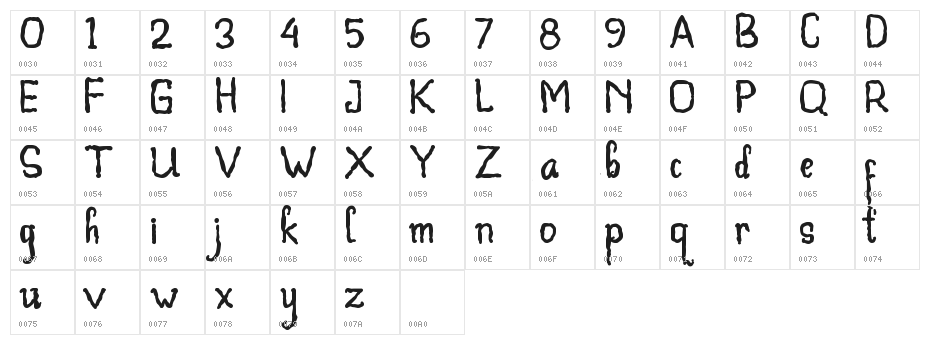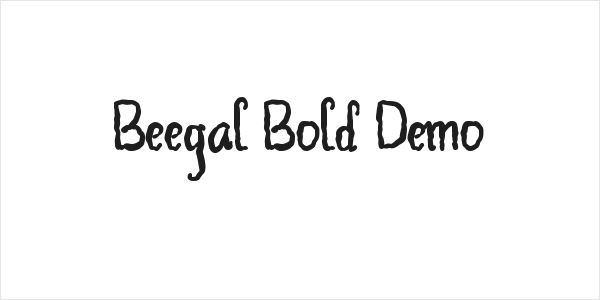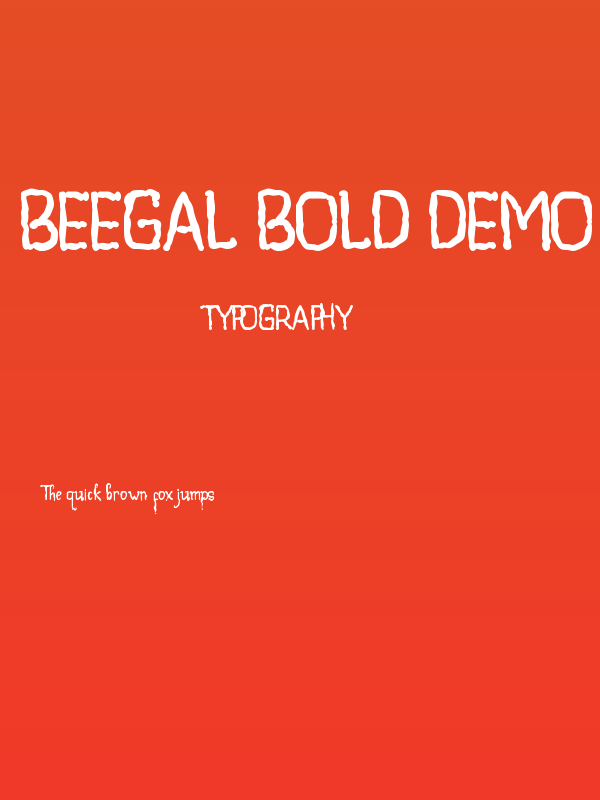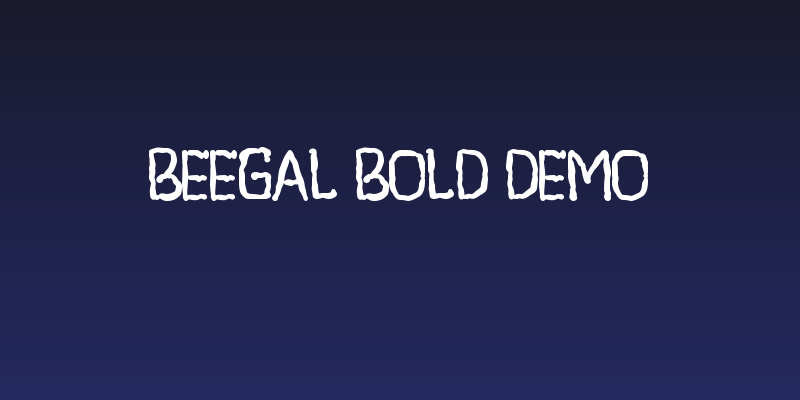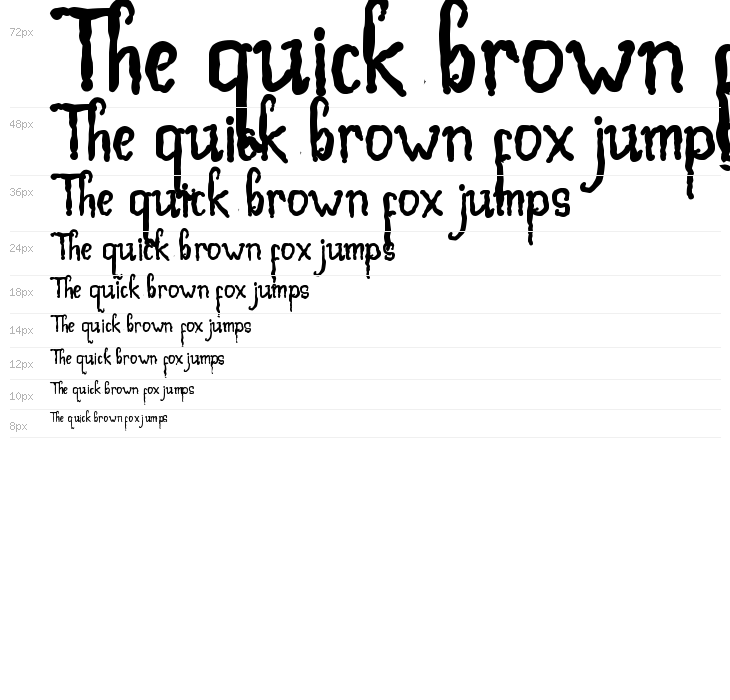
Beegal Bold Demo Font
Beegal Bold Demo Description
This font features a unique and playful design with a hand-drawn appearance. The characters have an irregular, organic shape, giving them a whimsical and artistic feel. The strokes are uneven, with varying thickness that adds to the font's charm. It has a bold presence, making it suitable for attention-grabbing headlines or creative projects. The uppercase and lowercase letters maintain a consistent style, while the numbers and special characters blend seamlessly with the overall design. This font's distinctiveness makes it ideal for projects that require a touch of creativity and individuality.
| Proposed Projects | Ideal for children's books, creative posters, artistic branding, and playful invitations. |